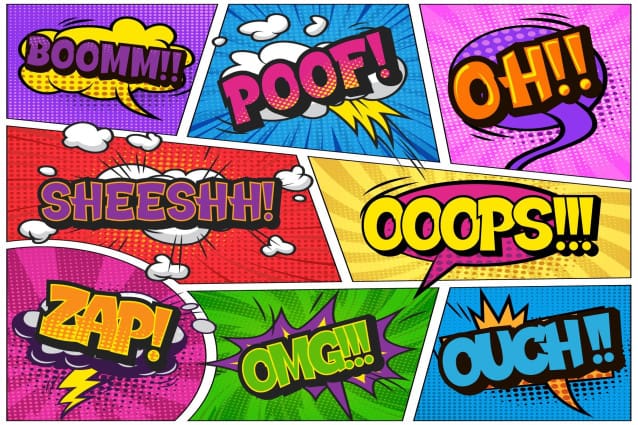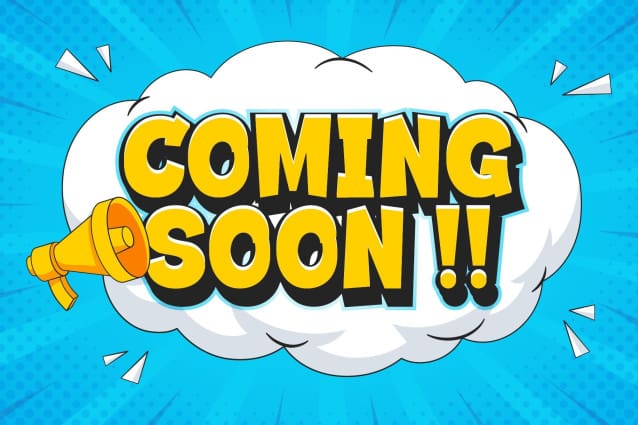
Comic Kids Typeface
Comic Kids Typeface is a fun and thick lettered display font. It is great for delivering any message with confidence, authenticity and charm. Use it for cartoons, magazine covers, games or pretty much anything that requires a jolly touch.